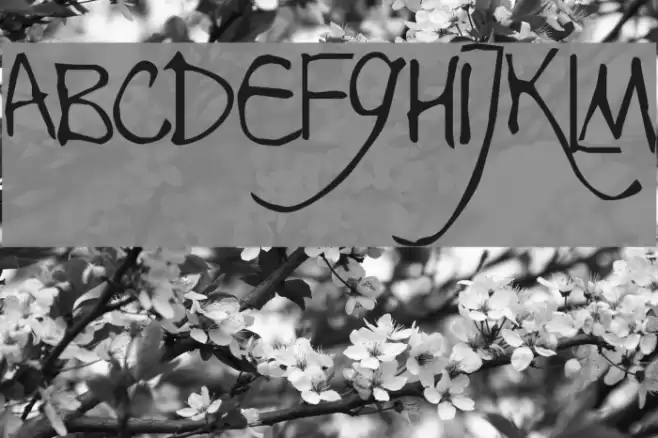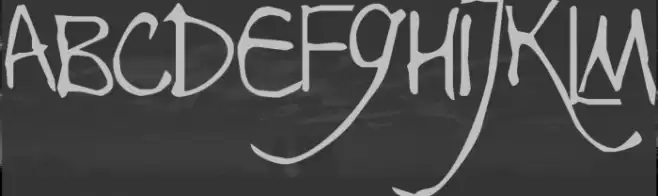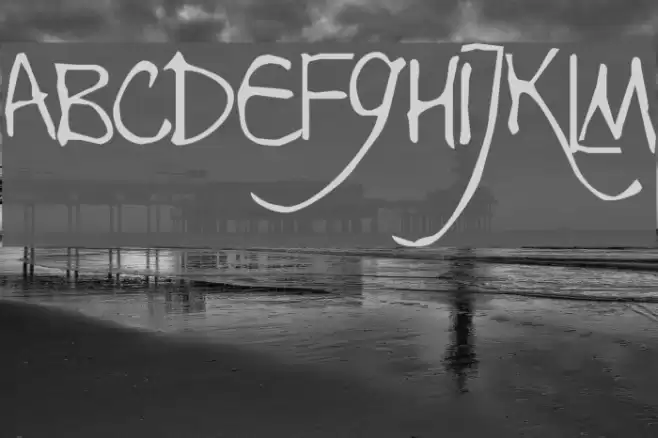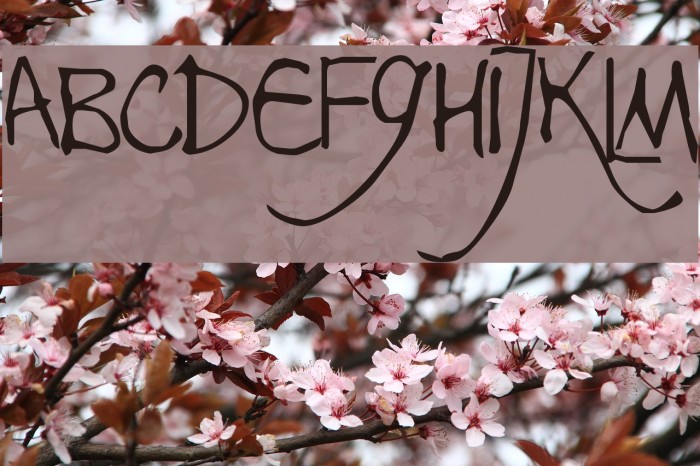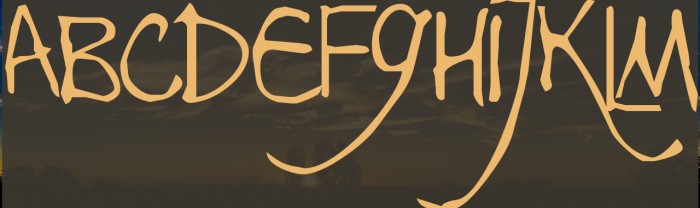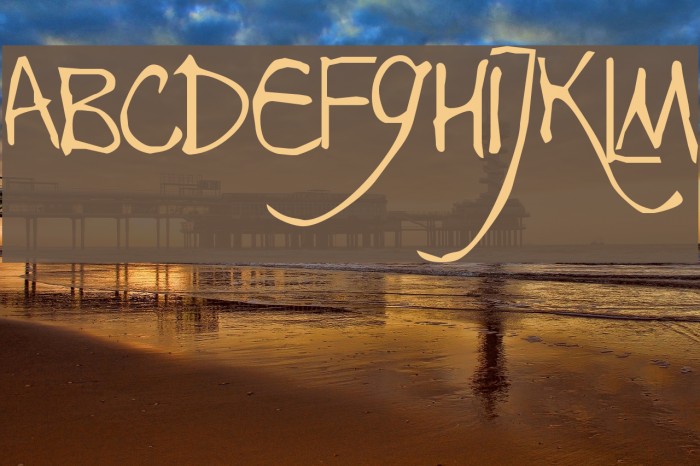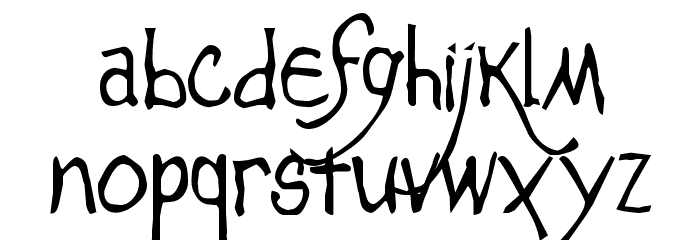
Rosalinde Font
Rosalinde Description
This font exhibits a unique, artistic style with a hand-drawn appearance. The characters are irregular and feature a mix of sharp angles and flowing curves, giving it a dynamic and expressive look. The uppercase letters are particularly bold and striking, while the lowercase letters maintain a consistent yet whimsical form. The overall design is reminiscent of calligraphy, with a modern twist that adds a touch of edginess. The font's distinctive personality makes it suitable for creative and unconventional projects, where a strong visual impact is desired.
An artistic, hand-drawn font with dynamic, expressive characters from Handwritten fonts.
- Proposed Projects: Ideal for album covers, posters, artistic branding, and creative invitations.
- Overall Style: Modern, Decorative
- Use Case: Logos, Headlines, Artistic projects